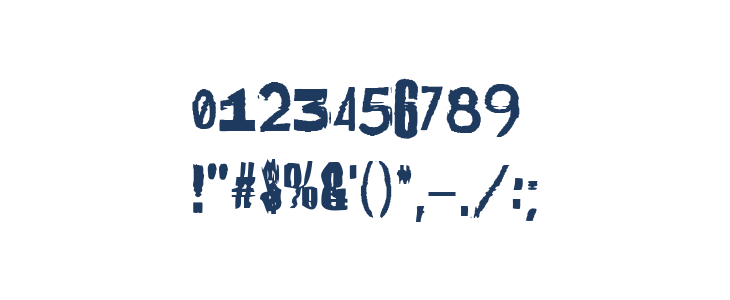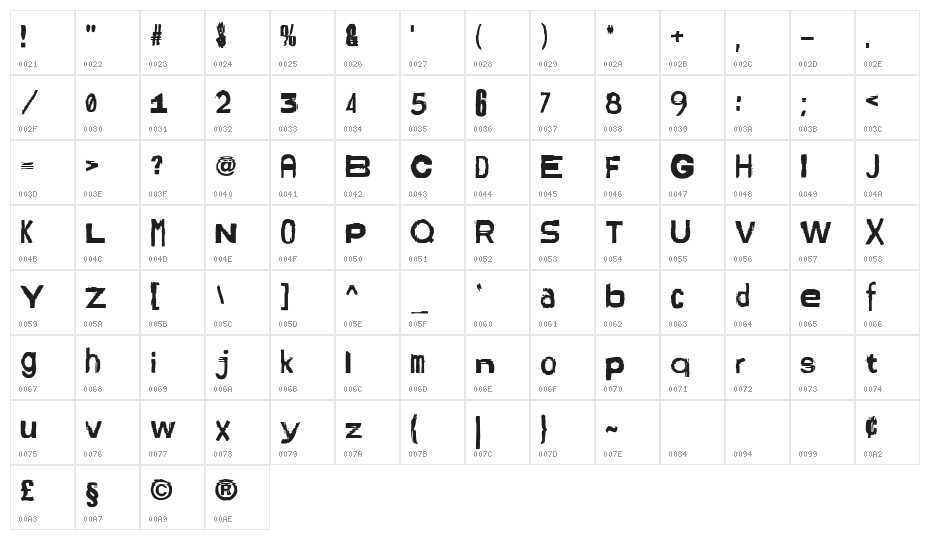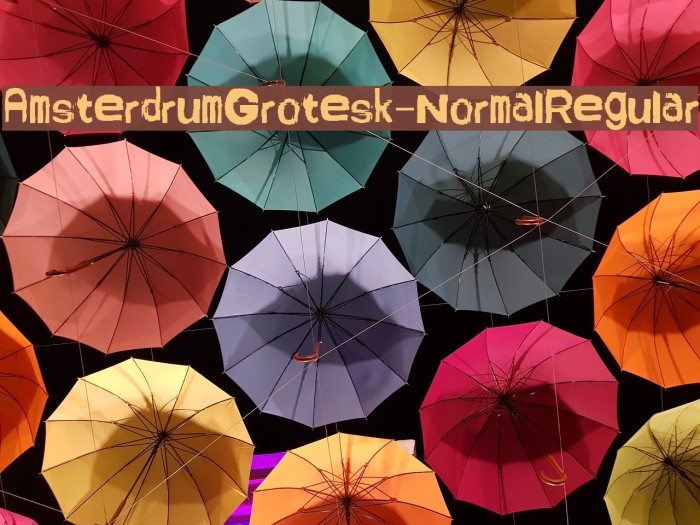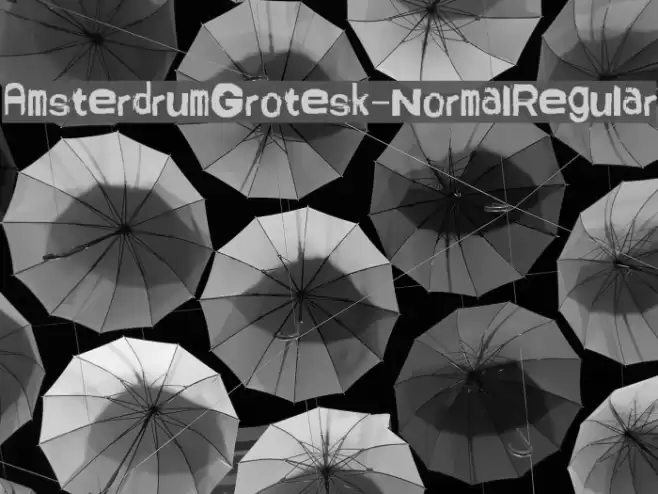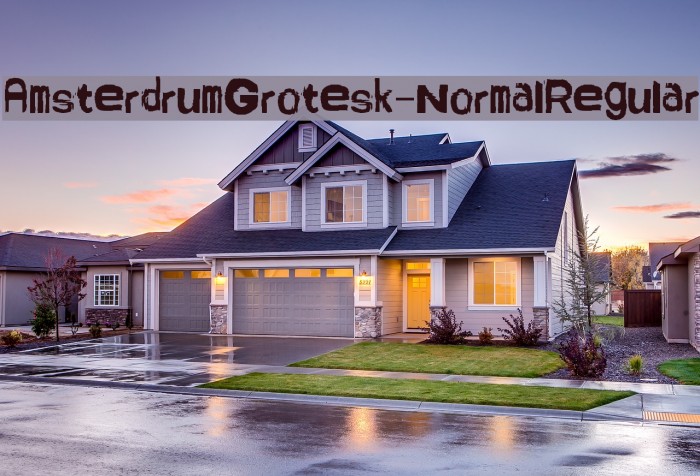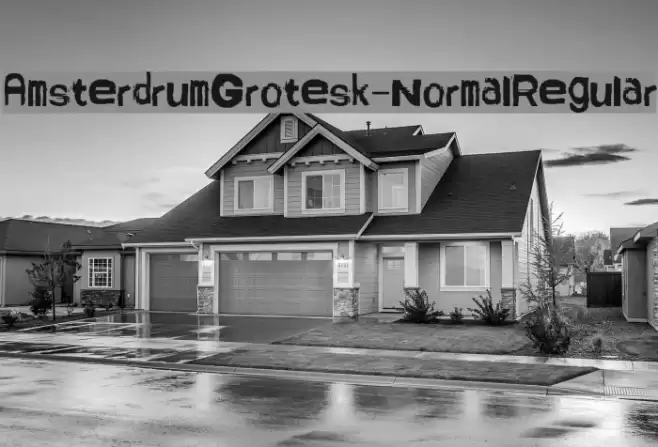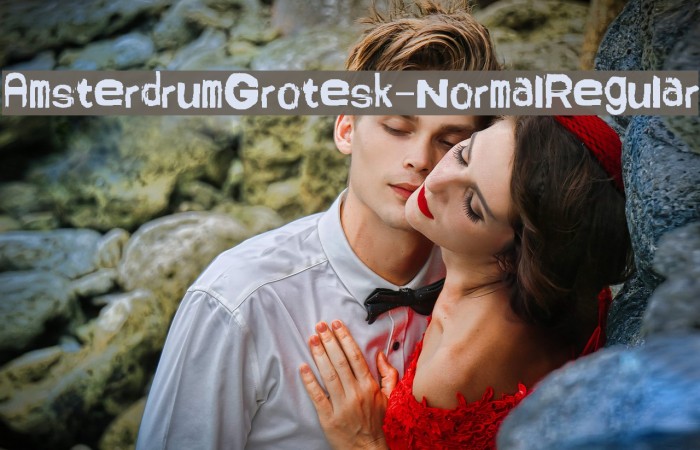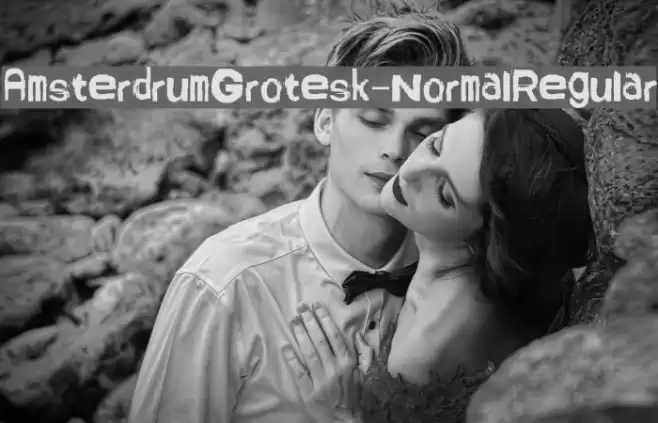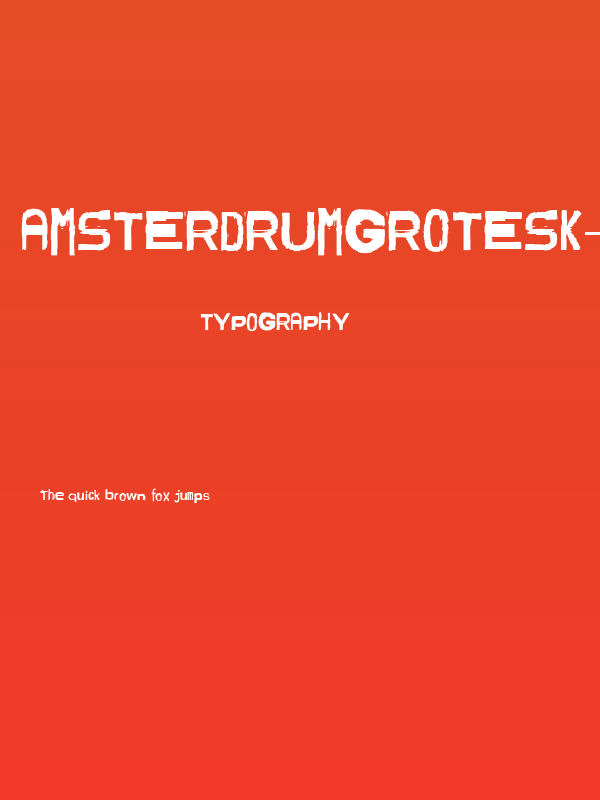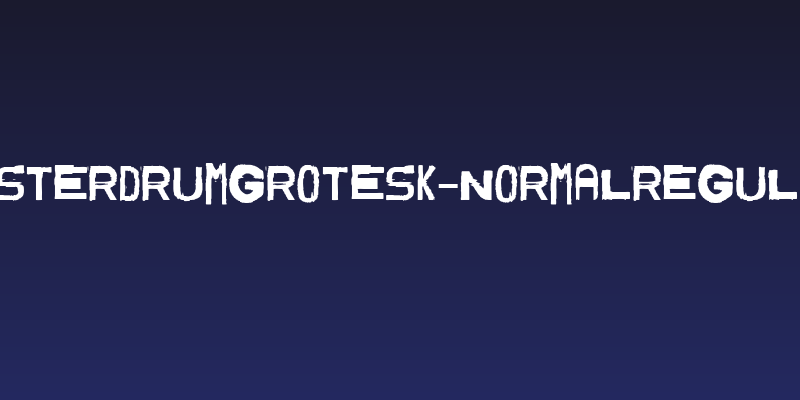
AmsterdrumGrotesk-NormalRegular Font
AmsterdrumGrotesk-NormalRegular Description
This font exhibits a bold and distressed style, characterized by its rough, textured appearance. The uppercase and lowercase letters maintain a consistent height, while the numbers and special characters follow the same rugged aesthetic. The font's unique design gives it a hand-drawn, artistic feel, making it stand out with its irregular edges and bold strokes. The overall look is dynamic and eye-catching, suitable for projects that require a strong visual impact. Its distinctive style is perfect for creative and unconventional designs.
| Proposed Projects | Ideal for posters, album covers, branding, and any project that requires a bold, artistic touch. |